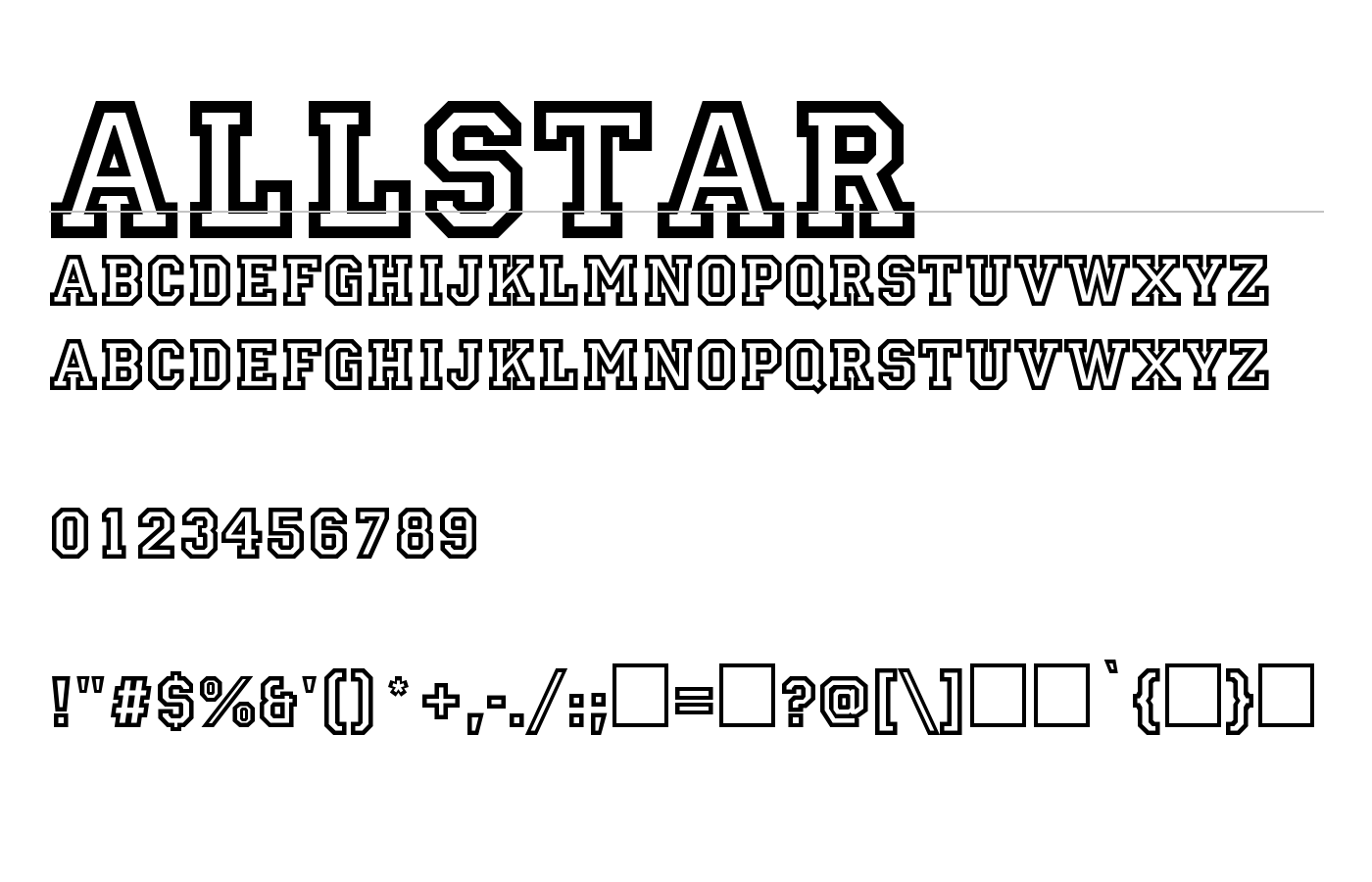
Allstar is a bold, condensed slab serif font with a strong collegiate or varsity style, characterized by thick, blocky letterforms with prominent, angular serifs and an outline effect that adds depth. Its uniform stroke weight and uppercase-only design convey a sporty, energetic, and classic vibe, making it perfect for logos, sportswear branding, posters, and headlines where a confident, vintage athletic look is desired.
Allstar Font
About Allstar Font